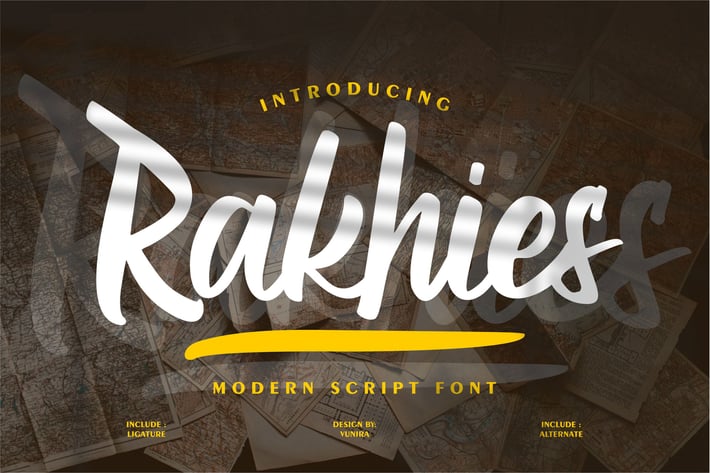
Rakhies | Modern Script Font
Rakhies | Modern Script Font with a calligraphy style, So beautiful on invitation like greeting cards, branding materials, business cards, quotes, posters, and more!